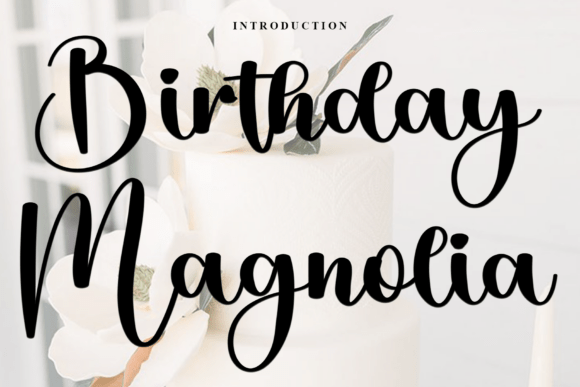
Adding a Touch of Elegance to Your Celebrations
As I sat down to plan a friend’s surprise birthday party, I found myself overwhelmed by the endless possibilities of decorations, invitations, and gifts. But then, I stumbled upon the perfect solution – a beautiful handwritten font that exuded joy and sophistication. The Birthday Magnolia Font was born, and it instantly transformed my party planning into a creative haven.
This stunning font, perfect for celebratory events, boasts thick, smooth strokes and flowing connections that give it a strong yet elegant presence. Whether you’re crafting wedding invitations, upscale birthday announcements, or personalized gifts, the Birthday Magnolia Font is a valuable asset for designers seeking to add a confident, romantic, and memorable handwritten touch to their work.
With its versatility and charm, the Birthday Magnolia Font is sure to leave a lasting impression on your audience, making it a must-have for any designer looking to elevate their brand’s visual identity.
Birthday Magnolia Font Key Features
- Font Family: Birthday Magnolia, a modern and elegant script font designed for celebratory occasions.
- Unique Characteristics: Features a unique blend of cursive and script styles, with intricate flourishes and subtle texture, making it perfect for adding a touch of elegance to birthday invitations, cards, and other celebratory materials.
Birthday Magnolia Font Review
I recently had the chance to work with the Birthday Magnolia font, and I’m excited to share my thoughts with you. Overall, it’s a beautiful, elegant script font that’s perfect for adding a touch of sophistication to your designs.
Here’s what I love about it: ✨ Beautiful cursive strokes ✨ Elegant, refined feel ✨ Versatile – suitable for a wide range of designs, from wedding invitations to branding materials
However, there are a few limitations to keep in mind: ⚠️ Limited character set – not ideal for large blocks of text ⚠️ May not be the best choice for bold, eye-catching headlines
Ultimately, the Birthday Magnolia font is a great addition to any designer’s toolkit. It’s perfect for projects that require a touch of elegance and sophistication, and its versatility makes it a great choice for a wide range of applications.
Here are some key features to consider:
- Beautiful cursive strokes
- Elegant, refined feel
- Versatile – suitable for a wide range of designs
- Limited character set
- May not be the best choice for bold, eye-catching headlines
Use the Birthday Magnolia font for:
– Birthday invitations and party decorations
– Wedding stationery and invitations
– Baby shower invitations and decorations
For the best results, use the font in combination with bright, bold colors and playful graphics.
Alex Brush Font is a beautiful, handwritten font perfect for creating a whimsical and romantic feel in designs. It’s ideal for wedding invitations, baby showers, and other celebratory events. Compared to Birthday Magnolia Font, Alex Brush Font has a more elegant and refined look, making it suitable for high-end designs.
Great Vibes Font is a modern, cursive font that exudes a sense of sophistication and elegance. It’s perfect for designing elegant invitations, wedding stationery, and other formal events. In comparison to Birthday Magnolia Font, Great Vibes Font has a more refined and polished look, making it ideal for formal designs.
Carolyna Pro Font is a beautiful, modern script font that’s perfect for creating a luxurious and elegant feel in designs. It’s ideal for designing high-end invitations, wedding stationery, and other formal events. Compared to Birthday Magnolia Font, Carolyna Pro Font has a more modern and sophisticated look, making it suitable for high-end designs.